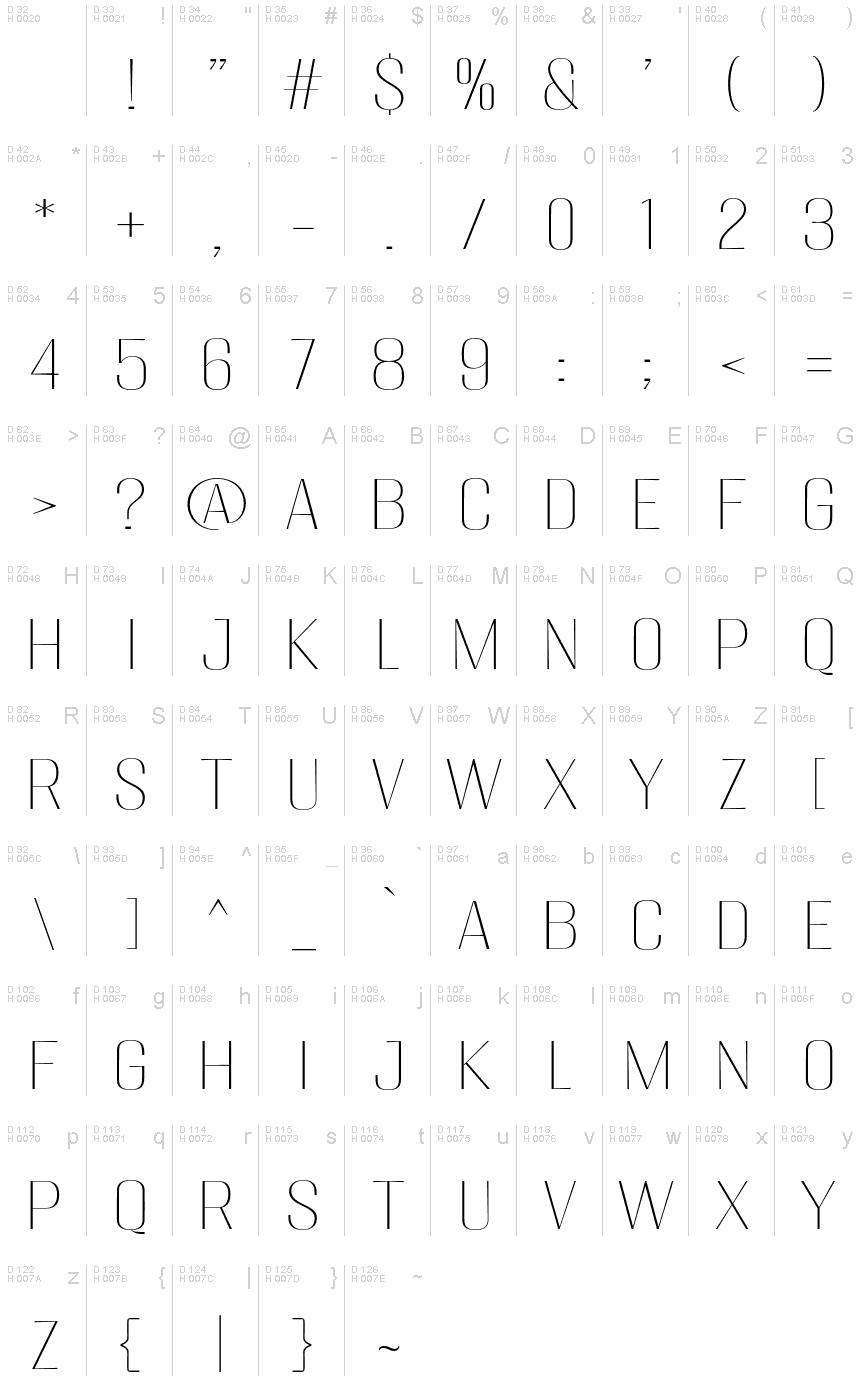
Migha-ThinSemiExpanded
Looking for a modern, sleek font that's perfect for your next digital project? Look no further than Migha Thin SemiExpanded by Seniors Studio. This extra-light sans-serif typeface features a semi-condensed width that's ideal for a variety of projects, from web design to branding and beyond. With its clean lines and minimalist aesthetic, Migha Thin SemiExpanded is the perfect choice for anyone looking to create a professional and polished look. So whether you're designing a website, creating marketing materials, or crafting the perfect logo, this versatile font is sure to make an impact.